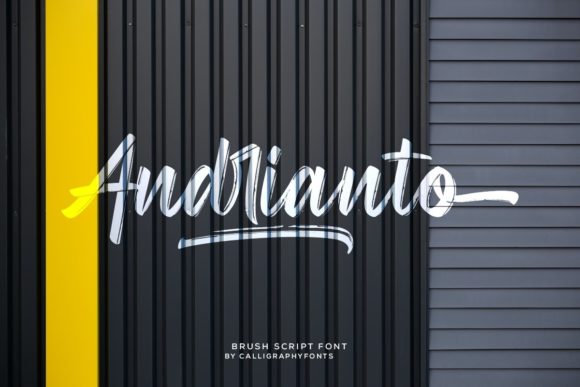
The Designer’s Delight: Andrianto Font Review and Guide
I’ll never forget the time I was working on a project for a client who wanted a custom wedding invitation. I had spent hours browsing through font libraries, but nothing seemed quite right. That was until I stumbled upon the Andrianto font. Its unique, brushed handwritten style instantly caught my eye, and I knew I had found the perfect fit. In this article, I’ll share my love for the Andrianto font, its features, and provide a comprehensive guide on how to use it.
Andrianto Font: The First Impression
Andrianto is a cool brushed handwritten font that exudes a lovely flow. Its incredibly versatile style makes it perfect for a wide range of design projects, from wedding invitations to branding and packaging. One of the standout features of Andrianto is its PUA (Private Use Area) encoding, which allows you to access all the glyphs and swashes with ease.
• ✨ Unique, brushed handwritten style that’s both elegant and casual
• ✅ Highly versatile and suitable for a wide range of design projects
• ✅ Easy to read and understand, even at smaller font sizes
• ⚠️ Some users may find the font a bit too condensed for certain design applications
• 🤔 Limited availability of language support, so double-check compatibility
• Experiment with different stylistic alternates to add visual interest to your text.
• Use ligatures and ornaments to add a touch of elegance to your design.
The Designer Behind Andrianto
Andrianto font was designed with love and care by a talented type designer who wanted to create a unique and versatile font. Although the designer’s background is not well-known, it’s clear that they drew inspiration from the world of handwritten typography.
Q: What is the Andrianto font best used for?
A: The Andrianto font is best used for designs that require a unique, handwritten style, such as wedding invitations, branding, and packaging.